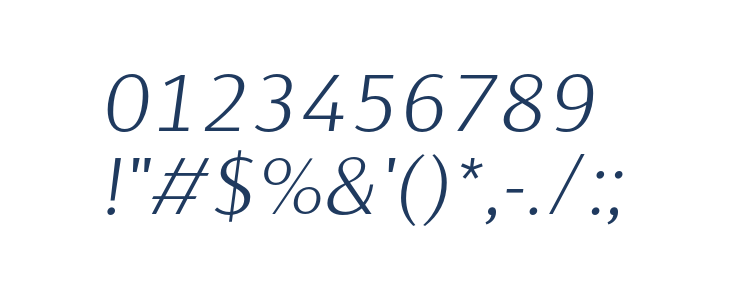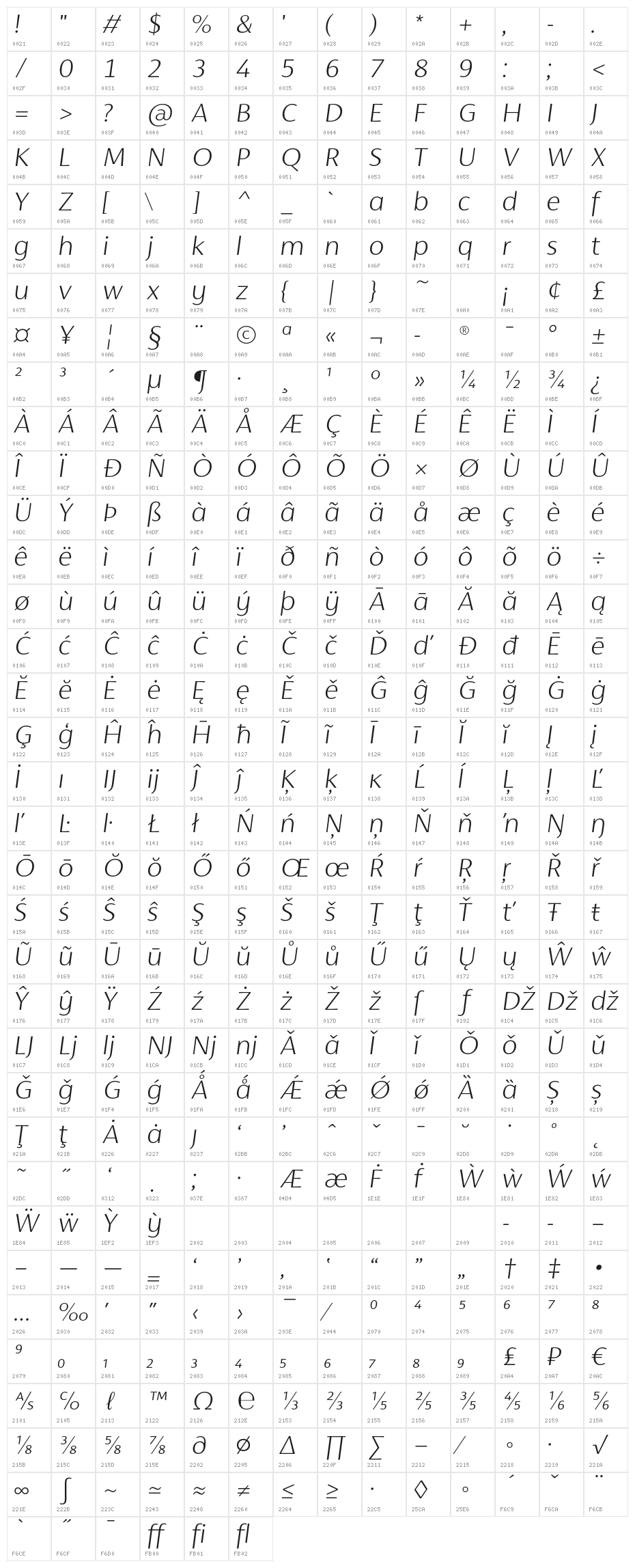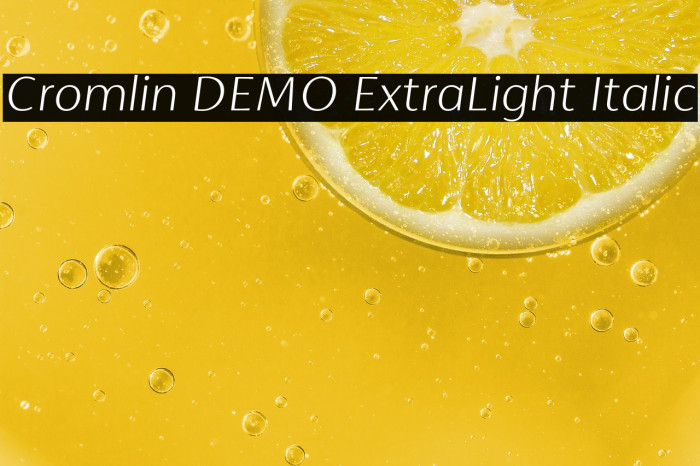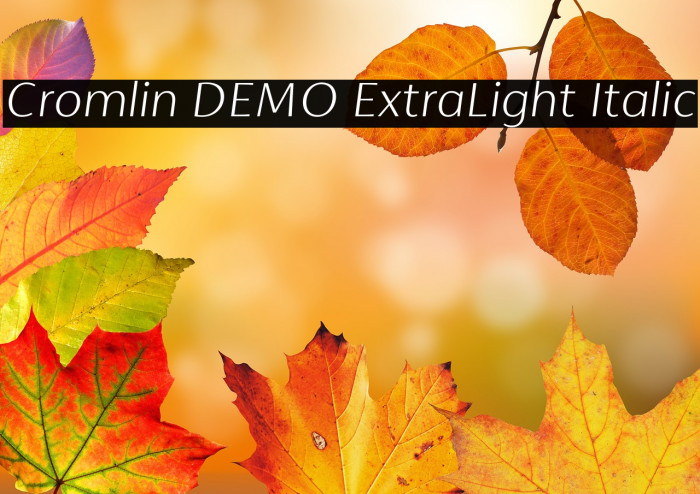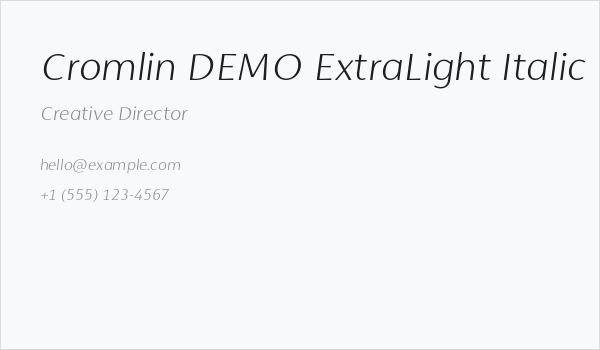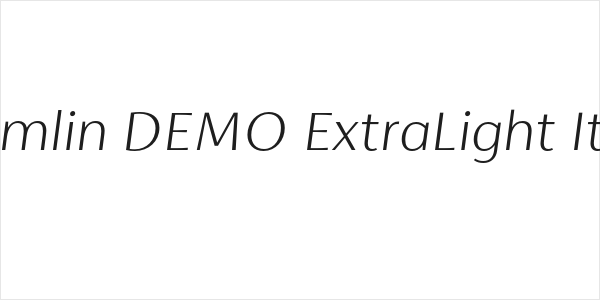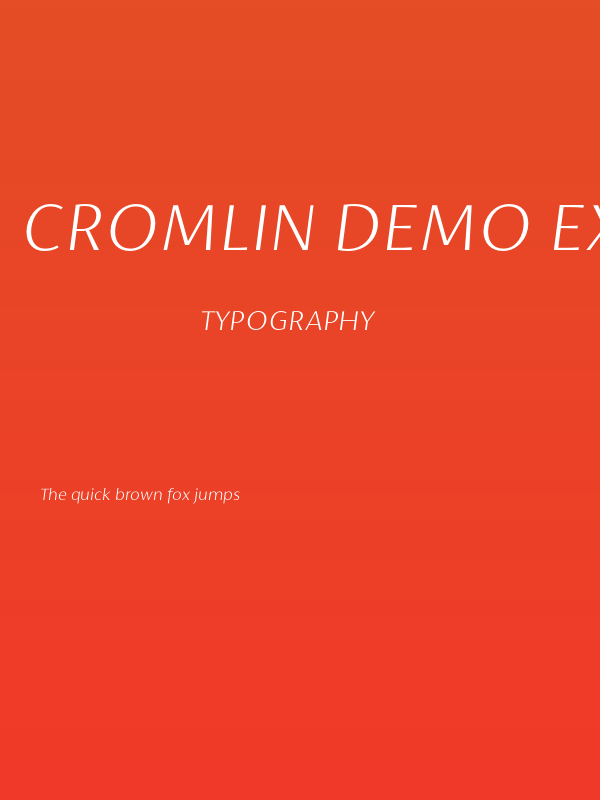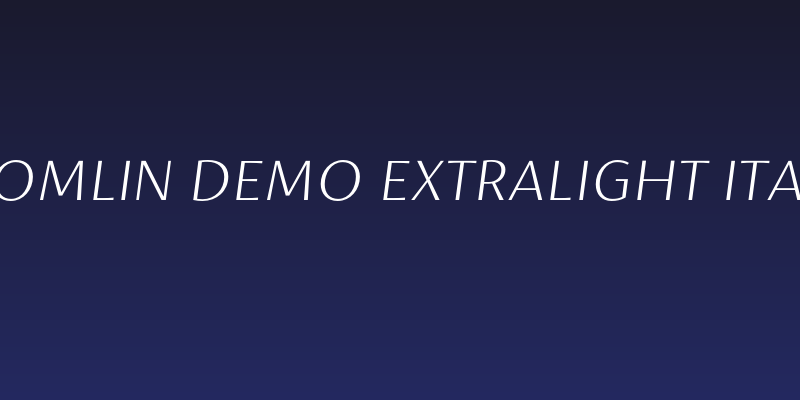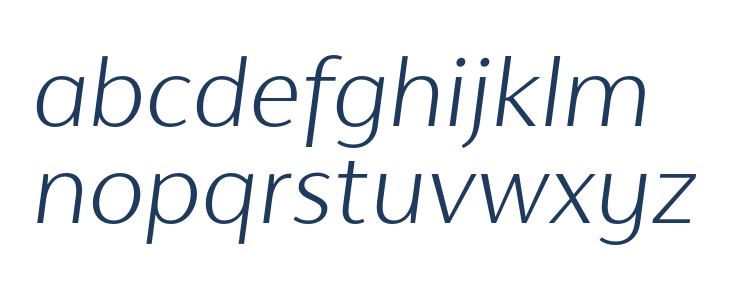
Cromlin DEMO ExtraLight Italic Font
Cromlin DEMO ExtraLight Italic Description
This font features a sleek and elegant design with a modern touch. The characters are crafted with an extra light weight, giving them a delicate and airy appearance. The italic style adds a sense of motion and sophistication, making it suitable for creative and stylish applications. The uppercase and lowercase letters maintain a consistent flow, while the numerals and special characters are designed to complement the overall aesthetic. The thin strokes and smooth curves contribute to its refined look, making it ideal for projects that require a subtle yet impactful typeface.